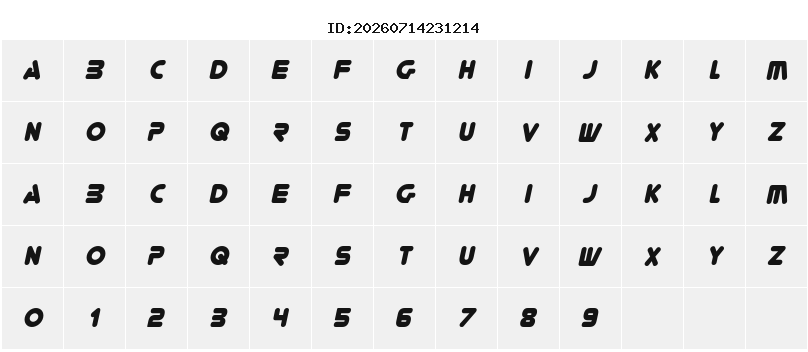
You're Gone Preview
• Font Name: You're Gone
• Font ID: RayLarabie: You're Gone Italic: 2000
• Full Font Name: You're Gone Italic
• PostScript Name: You'reGone-Italic
• Designer: Ray Larabie
About You're Gone.ttf
You're Gone.ttf is a modern, elegant sans-serif font designed for ultimate readability and visual harmony. Perfect for branding, headlines, web design, and print materials.